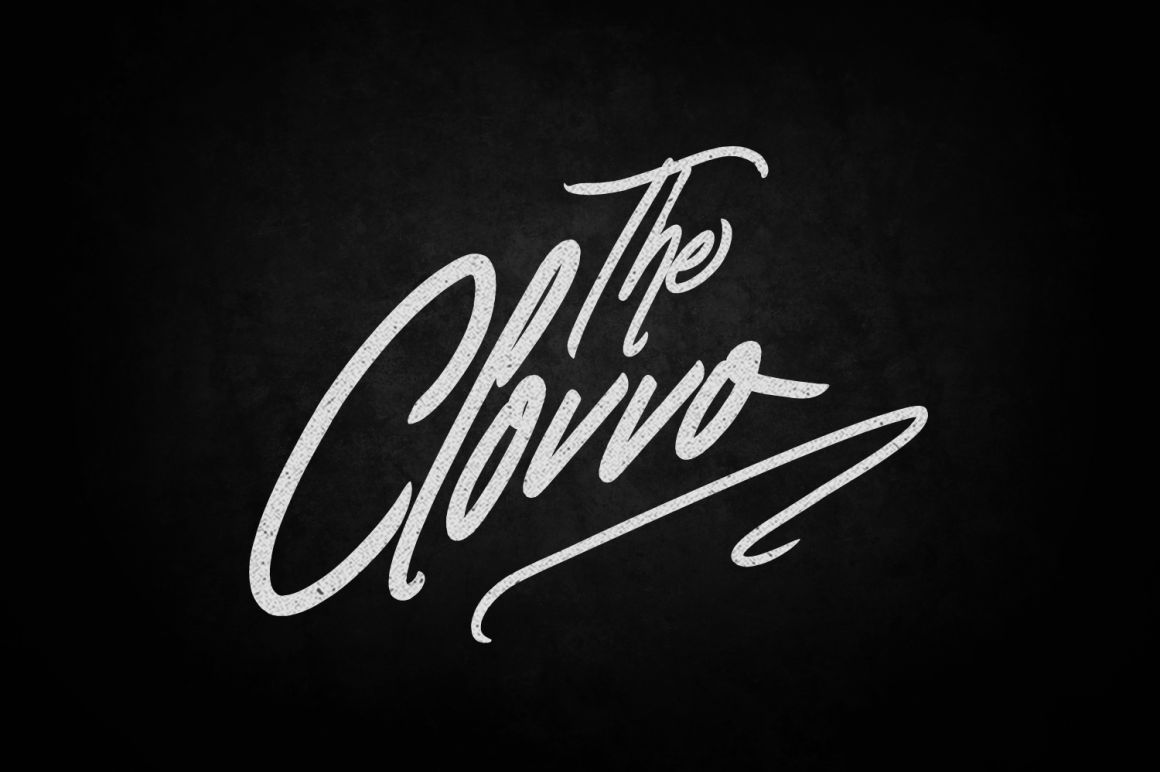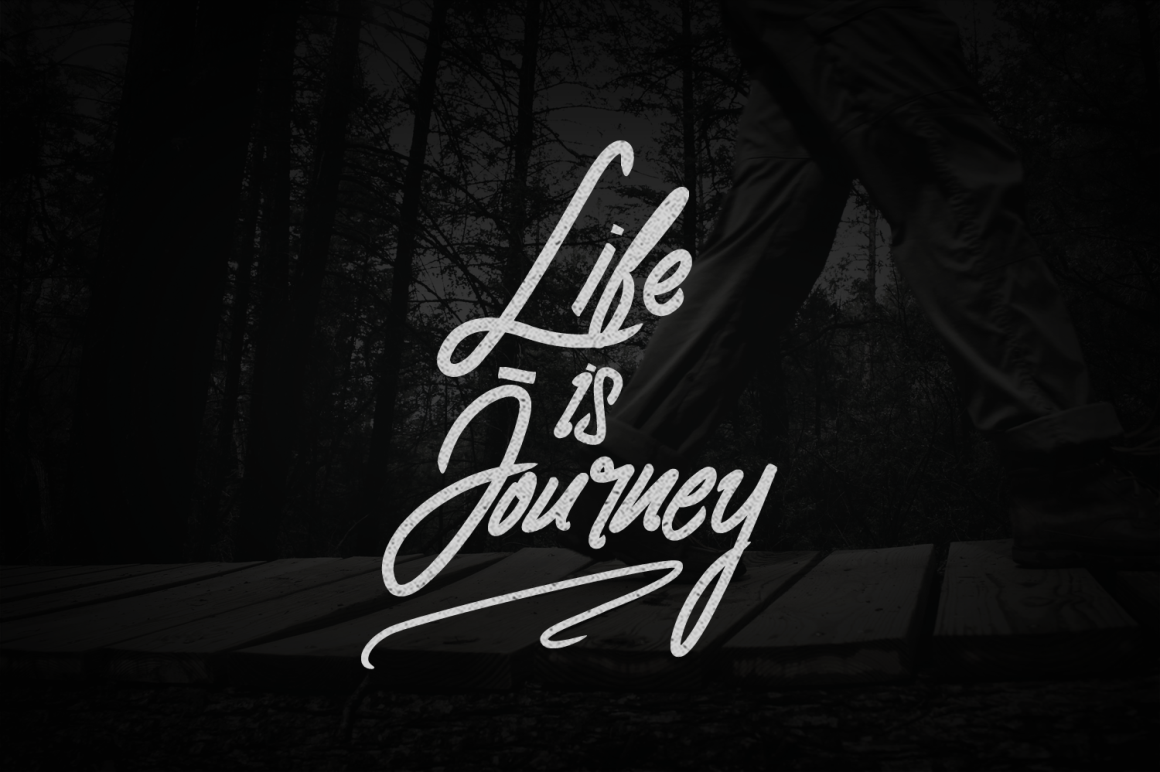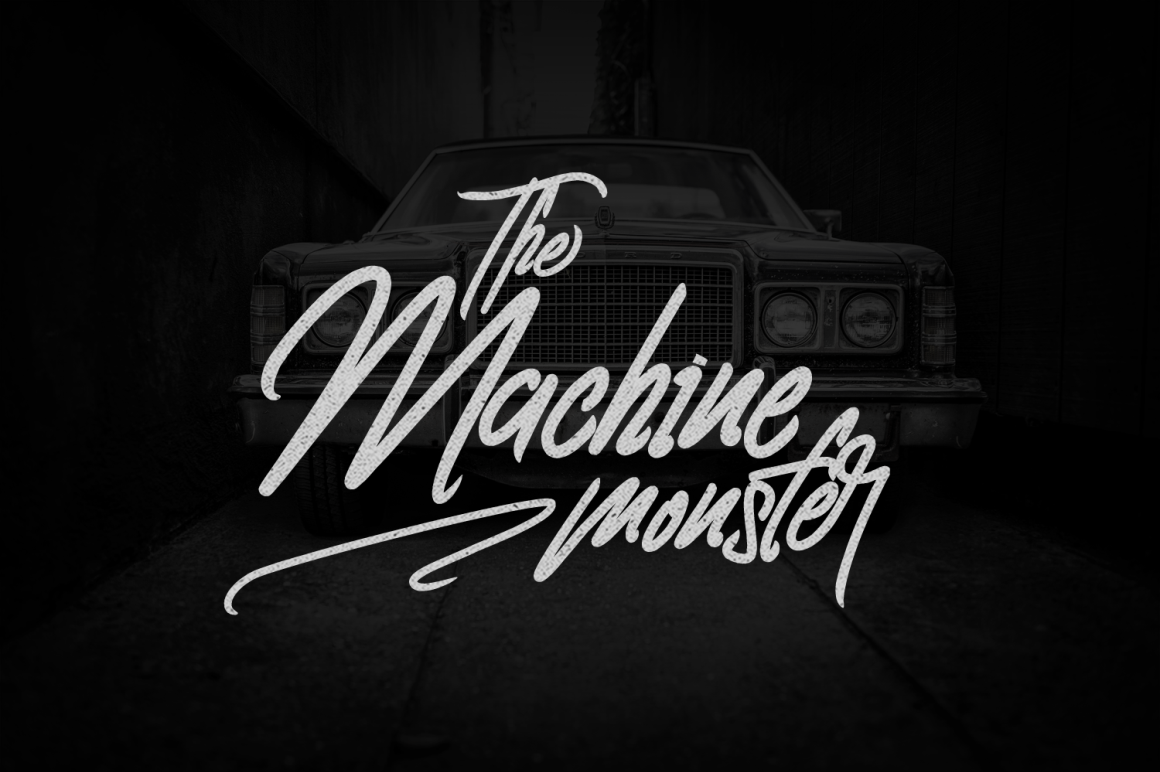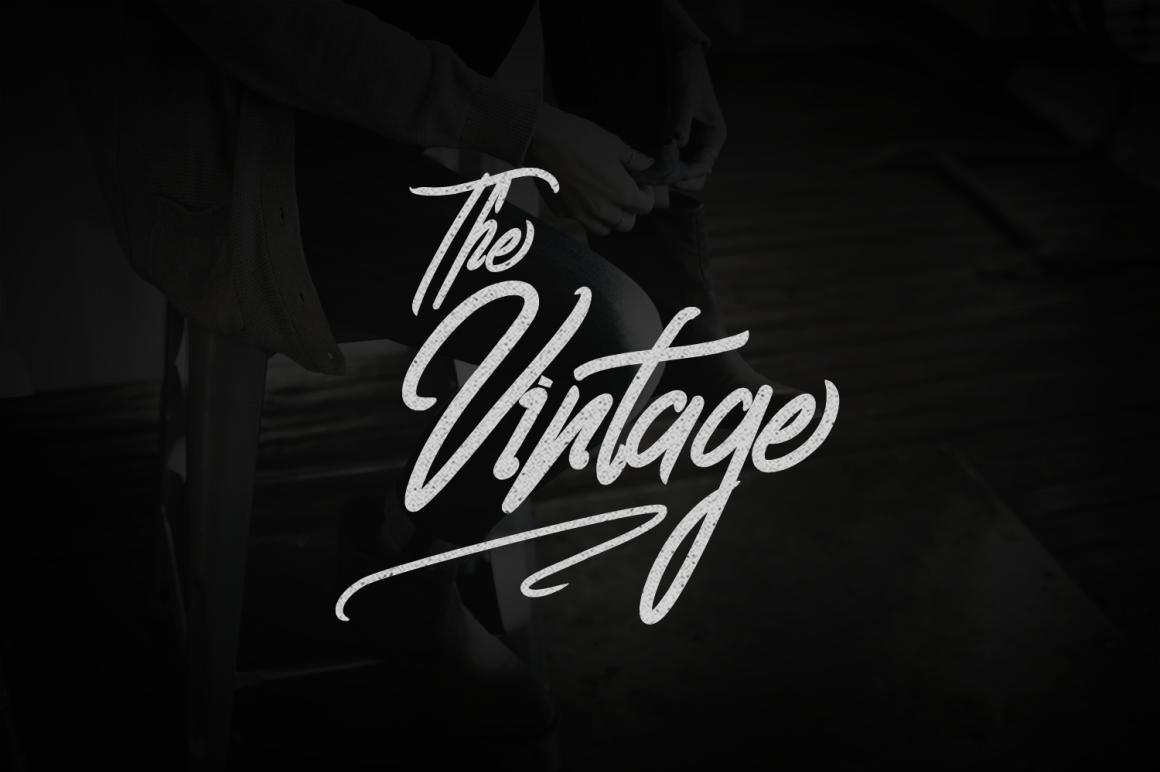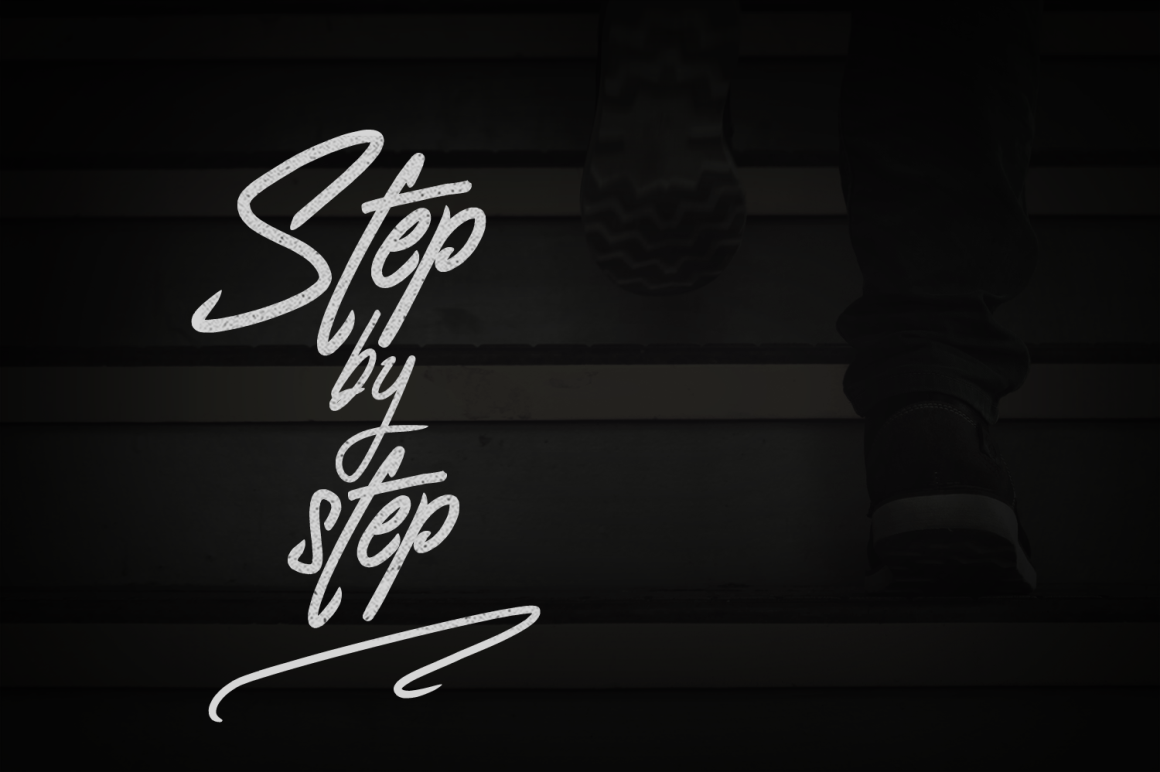
Clovvo Font
About Clovvo Font
Clovvo is a stunning and dynamic handwritten font, perfect for use in a wide range of styles and project types. This font looks mesmerizing in print, but is clean enough for impactful digital designs as well.